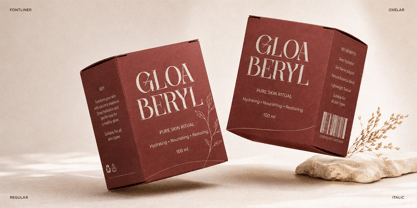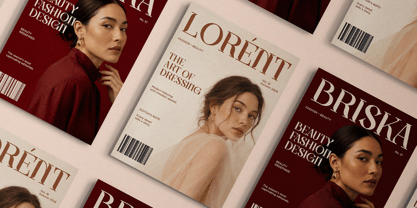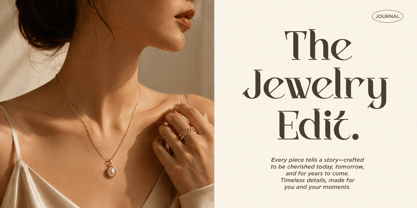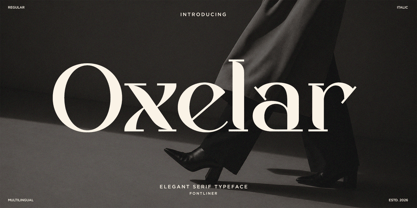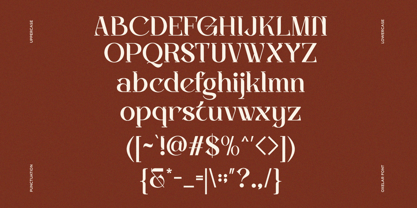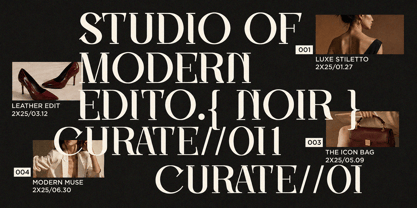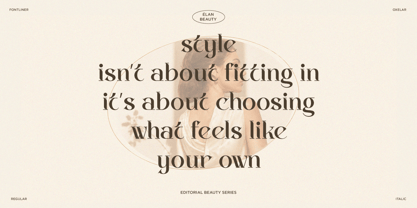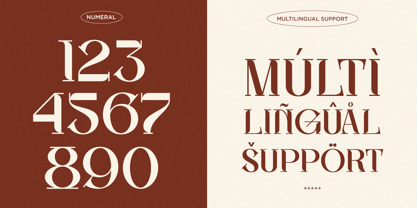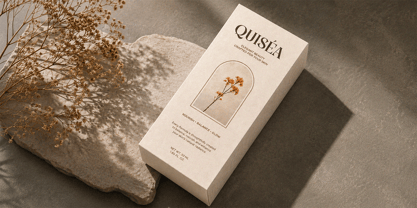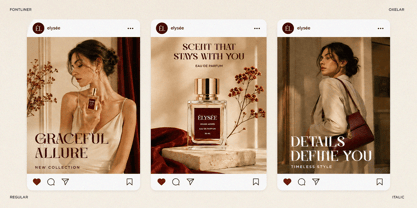
Oxelar
by Font Liner
Oxelar is an elegant editorial serif font designed to bring sophistication, refinement, and timeless character to modern visual identities. Its high-contrast letterforms, graceful curves, and distinctive serif details create a luxurious appearance that works beautifully across both classic and contemporary designs.
Perfect for fashion branding, luxury logos, beauty packaging, editorial layouts, magazine covers, wedding stationery, jewelry branding, cosmetics, and premium product identities. Oxelar is especially effective for elegant headlines, brand names, sophisticated typography compositions, and statement designs that need a polished editorial feel.
From high-end fashion campaigns and boutique identities to beauty products, jewelry collections, invitations, and magazine layouts, Oxelar adds a sophisticated typographic voice to every project. Its versatile character makes it an excellent choice for designers looking to create premium, feminine, elegant, and fashion-forward designs.
• Regular and Italic
• Uppercase and Lowercase
• Number, Symbol, and Punctuation
• Multilingual Support